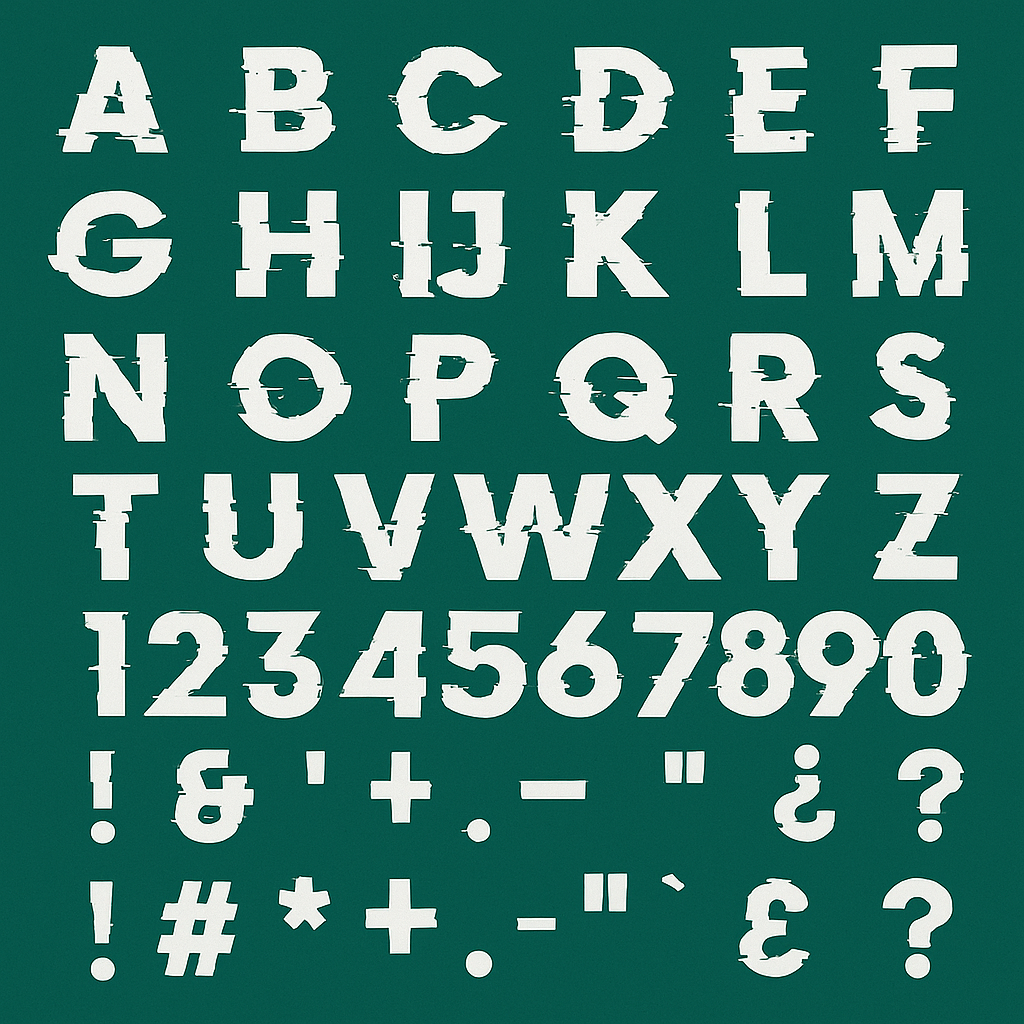
Doctor Glitch Font represents an exclusive and scientifically advanced option among the extensive selection of available font types. Designer Glitch Font features digital distortion aesthetics, a style frequently employed in cyberpunk design fields, technical projects, and video game development.
The ability to use Doctor Glitch Font effectively helps designers from various fields enhance their design projects, regardless of whether they work in graphics, video editing, or branding strategy.Â
Overview of Doctor Glitch Font
The emergence of Doctor Glitch Font came about to satisfy the rising demand for cyberpunk and digital design aesthetics. The typeface draws inspiration from the faulty screen visual distortions and data corruption as well as analog interference patterns to represent both the structured and erratic aspects of digital system errors.
The Doctor Glitch Display Font by Woodcutter exists to take you into digital realms through its expert design. Doctor Glitch Display Font merges futuristic style elements with glitch aesthetics through an otherworldly cyberpunk aesthetic. The result? A font that’s tailor-made for digital art that pushes boundaries.
Key Features of Doctor Glitch Font
Doctor Glitch is known for its distinct characteristics, making it an excellent choice for futuristic and technology-driven designs. Below are its key features:
- Glitch Aesthetic
The primary attraction of Doctor Glitch Font is its broken, distorted, and pixelated appearance, simulating digital corruption or hacking effects. The fragmented letters make it ideal for cyberpunk and digital themes.
- Futuristic and Tech-Oriented Design
Doctor Glitch exudes a high-tech and digital feel, making it a go-to choice for projects related to AI, robotics, and electronic music.
- All-Caps Display Typeface
Most variations of Doctor Glitch come in all capital letters, emphasizing a strong and impactful design. It works well for headlines, posters, and branding materials.
- Multiple Styles and Effects
Many versions of the font include variations such as:
- Regular (mildly distorted)
- Bold (stronger glitches)
- Outline (hollow letters with glitch effects)
- Shadowed or Layered Effects (adds depth and complexity) These styles offer flexibility in creative designs.
Applications of Doctor Glitch Font
Doctor Glitch Font is highly versatile in digital and print design, making it ideal for various creative projects. Here’s where you can use it effectively:
- Cyberpunk and Futuristic Design
Its glitch aesthetic element gives Glitch Fantasy the ability to transform any design into a perfect match for futuristic cyberpunk artwork. The font fits visual aesthetics based on Blade Runner 2049 and Ghost in the Shell which was established for movies in this genre.
- Gaming and Esports Branding
Doctor Glitch is a favorite in gaming logos, stream overlays, and esports tournament posters. It enhances the futuristic and tech-driven vibe often associated with the gaming community.
- Hacking and Tech Interfaces
Whether designing a hacker-themed website, YouTube thumbnail, or a cybersecurity presentation, this font reinforces the concept of digital interference and technology disruption.
- Music and Album Covers
Electronic, techno, synthwave, and glitch-hop artists often use Doctor Glitch for album covers, promotional posters, and social media graphics.
- YouTube and Social Media Graphics
For digital content creators, Doctor Glitch helps create eye-catching thumbnails, banners, and animated titles that attract attention instantly.
- Event Posters and Flyers
Music festivals, sci-fi conventions, and tech expos benefit from the high-energy, digital distortion effects of Doctor Glitch.
Conclusion
Doctor Glitch Font showcases the fusion of computer errors with the cyberpunk style while displaying futuristic design elements. Doctor Glitch Font serves projects in all areas including gaming graphics, tech branding, event posters and digital art to make them stand out beautifully.
Doctor Glitch integrates perfectly into creative projects when users apply its characteristics and working patterns along with substitute fonts to maintain both clarity and a contemporary visual look.